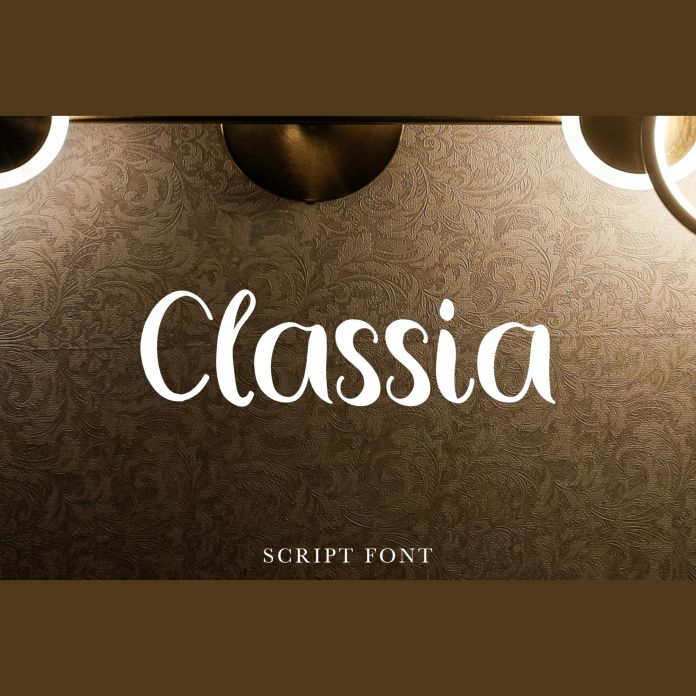
Classia script display font is a sophisticated and elegant typeface with intricate swirls and flourishes. It exudes a timeless charm and is perfect for luxury branding, invitations, and editorial designs. Its ornate details make it stand out and add a touch of sophistication to any project.